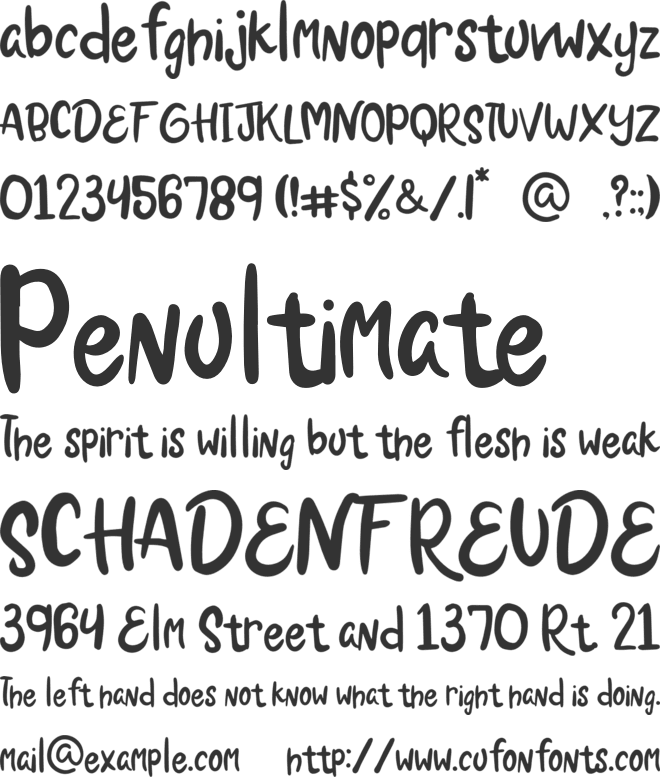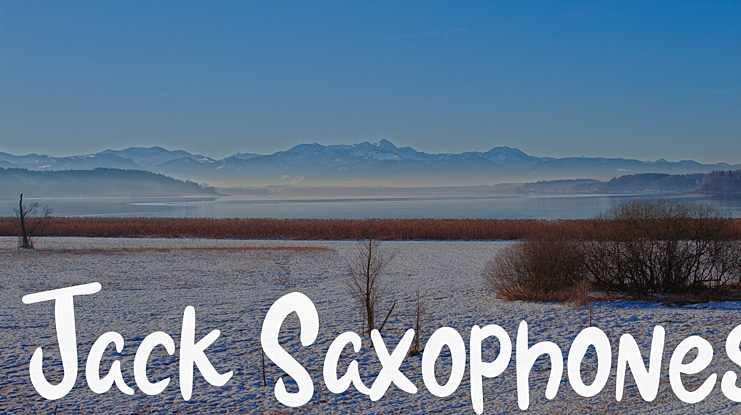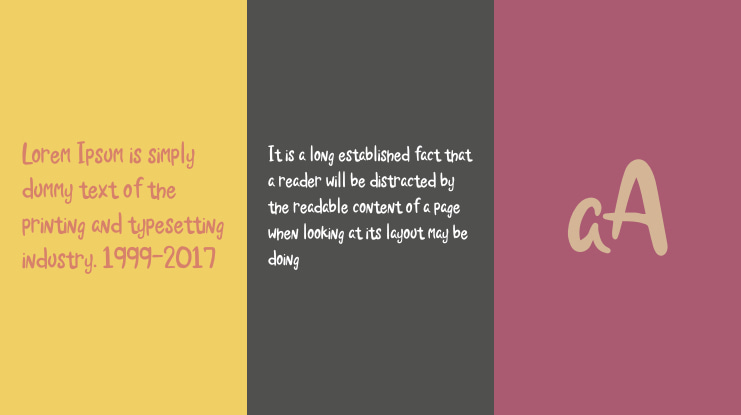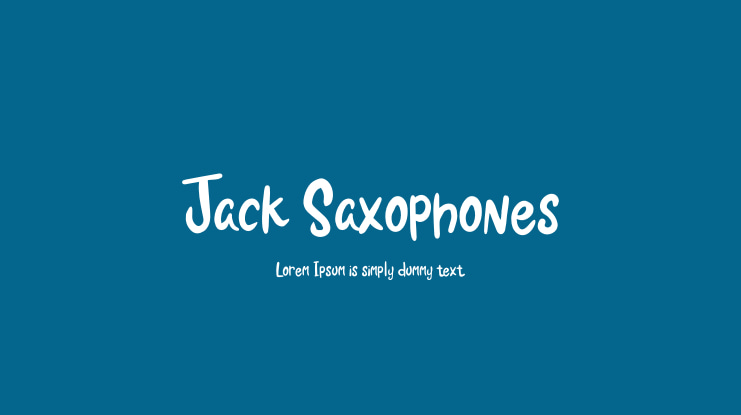
Jack Saxophones Font
Jack Saxophones is a fun handwritten font with brush style, comes with uppercase, lowercase, numerals, and punctuation. This font will be perfect pick for various designs & artworks like social media post, brand type, posters, merchandise, packaging, headlines, merchandises, t-shirt, and many more..
Features:
- Uppercase Letters
- Lowercase alternative Letters
- Numbers and Punctuation